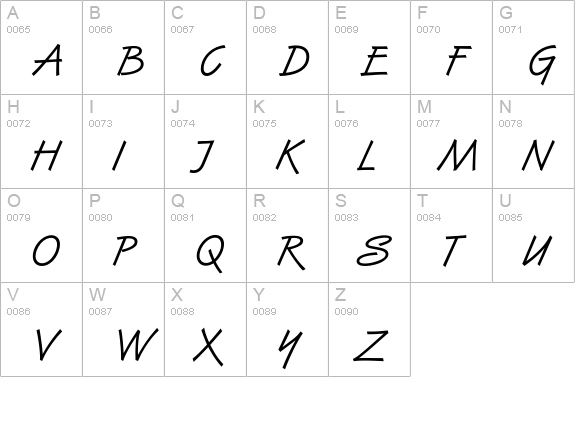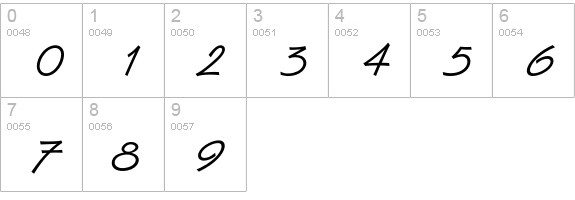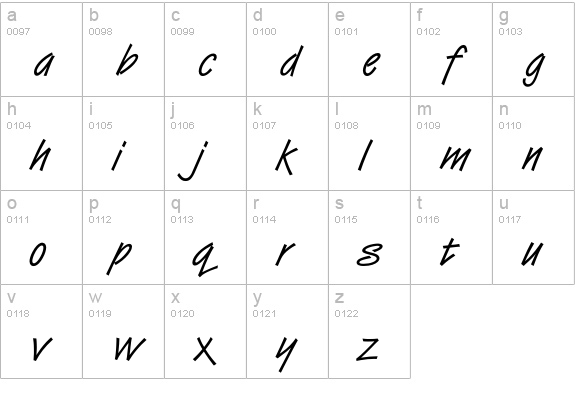
Hubert Font Details
Introducing Hubert font, a modern and versatile typeface designed to elevate your creative projects to new heights. With its unique blend of elegance and readability, Hubert is perfect for a wide range of design applications, from branding and advertising to editorial projects and more. Its sleek lines and distinctive letterforms will make your text stand out and leave a lasting impression on your audience. Best of all, Hubert font is completely free to download at FontsMarket.com. You can easily access this stylish font and enhance your designs without breaking the bank. Don't miss out on this fantastic opportunity to add a touch of sophistication to your work with the stunning Hubert font. Download it today and let your creativity shine!